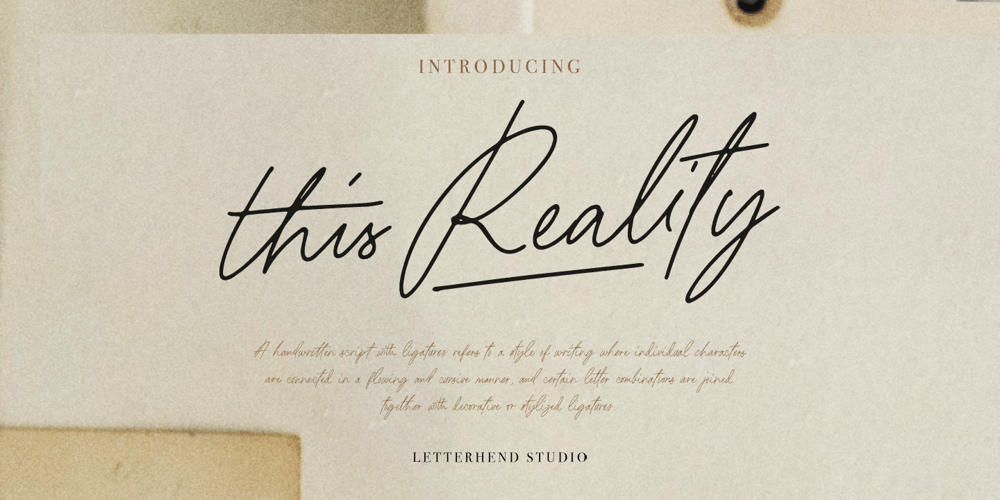
This Reality
This Reality font
This Reality Font Family was designed by Hendry Juanda and published by Letterhend. This Reality contains 1 styles and family package options. This Reality is a handwritten script with signature style. With a natural looks that gives classy to your designs. This type of font perfectly made to be applied especially in logo, and the other various formal forms such as invitations, labels, logos, magazines, books, greeting / wedding cards, packaging, fashion, make up, stationery, novels, labels or any type of advertising purpose.Features : Uppercase & lowercase Numbers and punctuation Alternates/Ligatures Multilingual PUA encoded